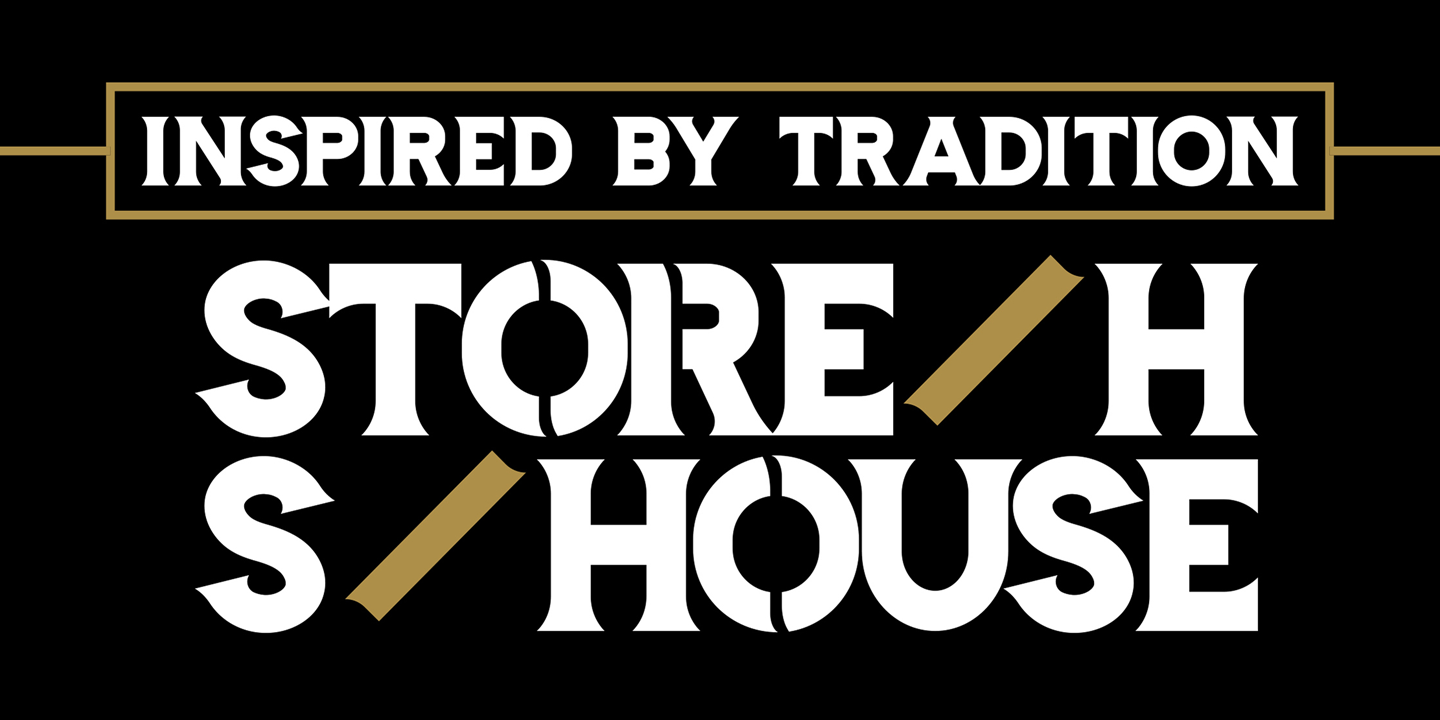
The Storehouse Font is a robust and authentic typeface, often characterized by its handcrafted feel, perhaps with subtle imperfections or a slightly distressed texture, designed to evoke a sense of vintage Americana, industrial charm, or honest craftsmanship. Imagine this font gracing the labels of artisanal food products, adding a timeless quality to boutique signage, or bringing a rustic elegance to brewery branding. Its sturdy construction and approachable aesthetic make it an excellent choice for branding that aims to convey reliability, heritage, and a warm, established presence. Storehouse Font is also perfectly suited for designing engaging social media graphics, vintage-inspired event posters, and any project where you want to infuse your message with a sense of genuine character and enduring appeal.
What makes Storehouse Font so exciting is its immediate ability to convey a sense of history and artisanal quality. It possesses an undeniable warmth that makes your designs feel authentic and memorable. The deliberate details, whether subtle rough edges or a hand-drawn sensibility, ensure that your text isn't just read; it's experienced as an integral part of a compelling visual narrative. This font doesn't just display words; it breathes character into them, making every headline feel unique and impactful. Its distinctiveness ensures your designs will stand out, resonating with an audience that appreciates genuine artistry and a touch of rugged individuality.
The Storehouse Font family, given its often specialized decorative nature, typically focuses on a core Regular weight that fully embodies its signature style. While extensive weight ranges (like thin or extra-bold) might be less common for such a character-driven font, there might be variations designed to enhance its specific appeal. This could include a distressed version for a more aged look, an inline style, or perhaps stylistic alternates for certain characters to provide even more design flexibility. The true power of Storehouse Font lies in its consistent and visually engaging design across all characters, making it highly effective for its intended purpose of creating standout, thematic headlines and branding. For those seeking the unique Storehouse Font Free Download, its captivating character offers a brilliant way to give your creative projects a distinctive and authentic voice.